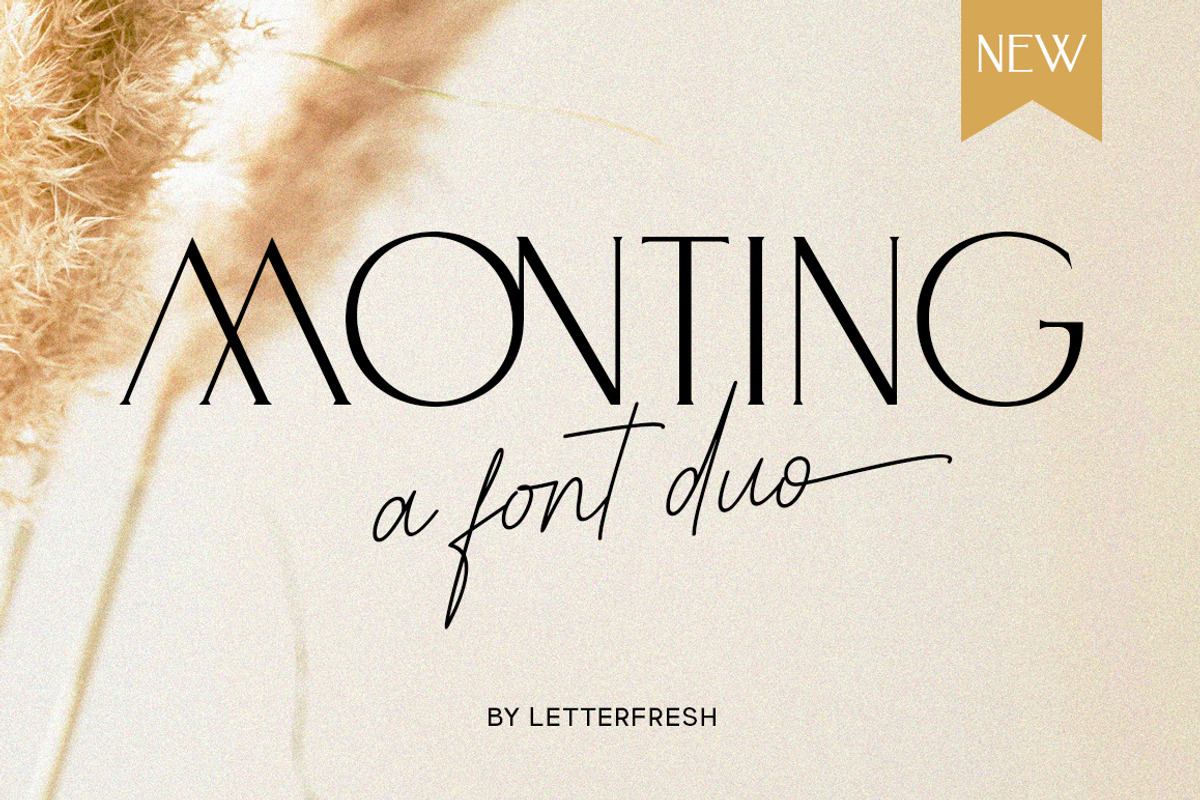
Monting Serif Script Modern Font Duo Free Download
Monting Serif Script Modern Font Duo Free Download is an elegant and versatile font pairing that combines a sophisticated serif with a flowing script. Perfect for modern branding, logos, invitations, posters, and any project that needs a stylish and professional touch, this duo offers both class and creativity.
The serif font brings structure and reliability, while the script font adds a dynamic, handwritten elegance. Together, they create a harmonious and impactful design. Monting includes uppercase and lowercase letters, punctuation, multilingual support, and is fully compatible with both Mac and Windows systems.